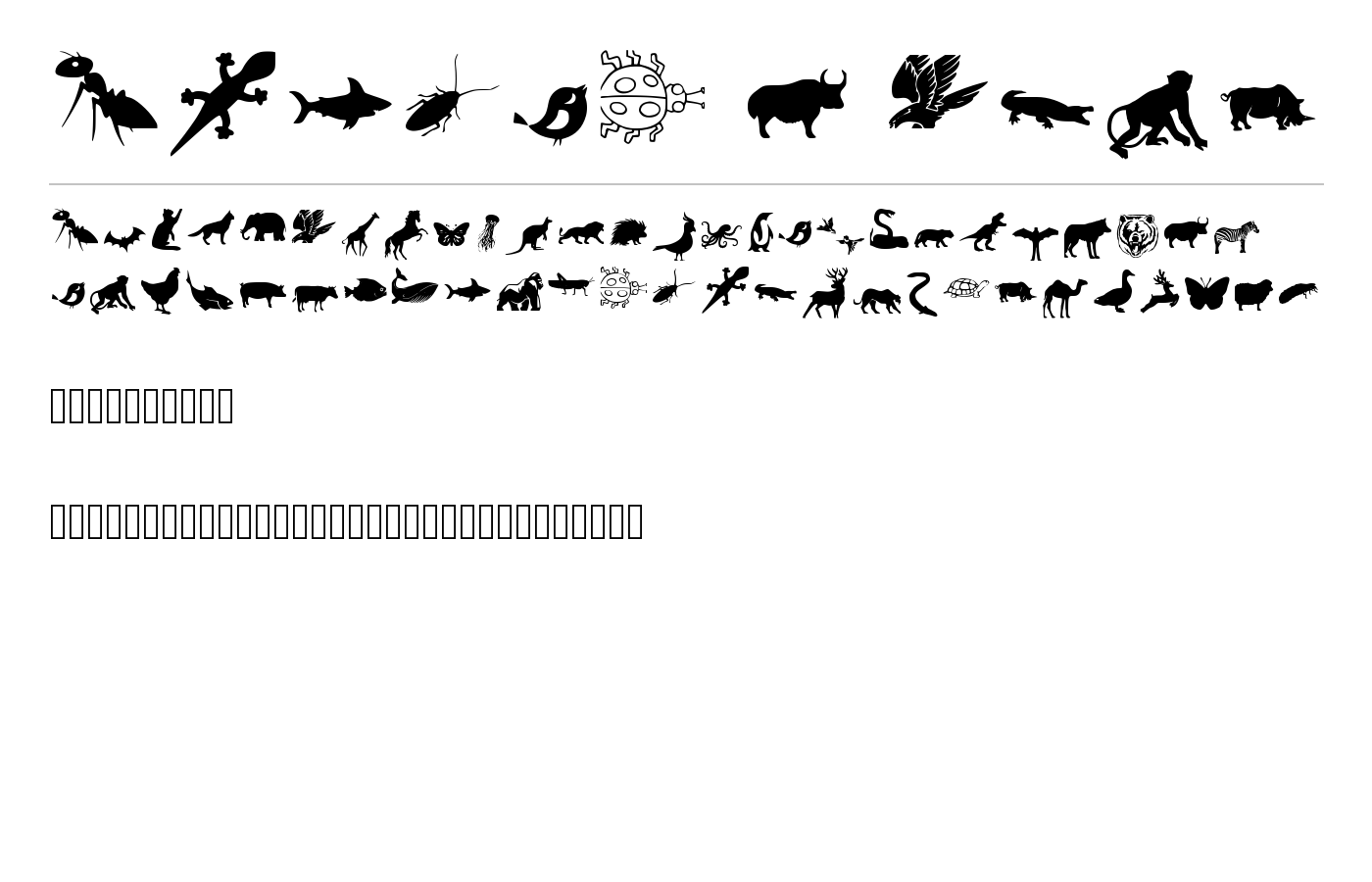
Animal Y Fobt is a playful symbol font composed entirely of animal silhouettes, offering a wide variety of creatures rendered in bold, solid black shapes. This unique font captures a fun and whimsical spirit, making it perfect for creative projects related to nature, wildlife, or children's themes. Its clear, recognizable shapes work well for logos, educational materials, and decorative purposes where a lively animal motif is desired.
Animal Y Fobt Font
About Animal Y Fobt Font